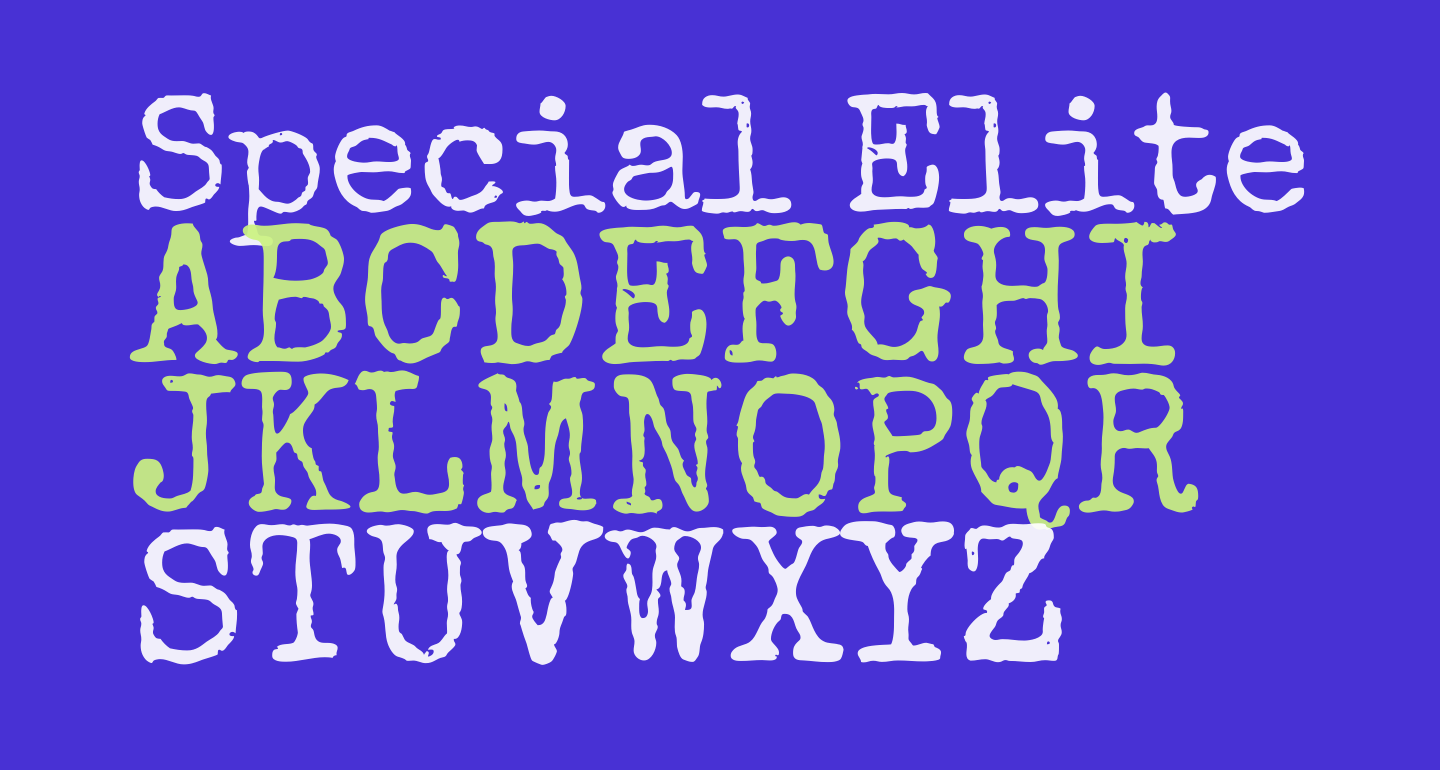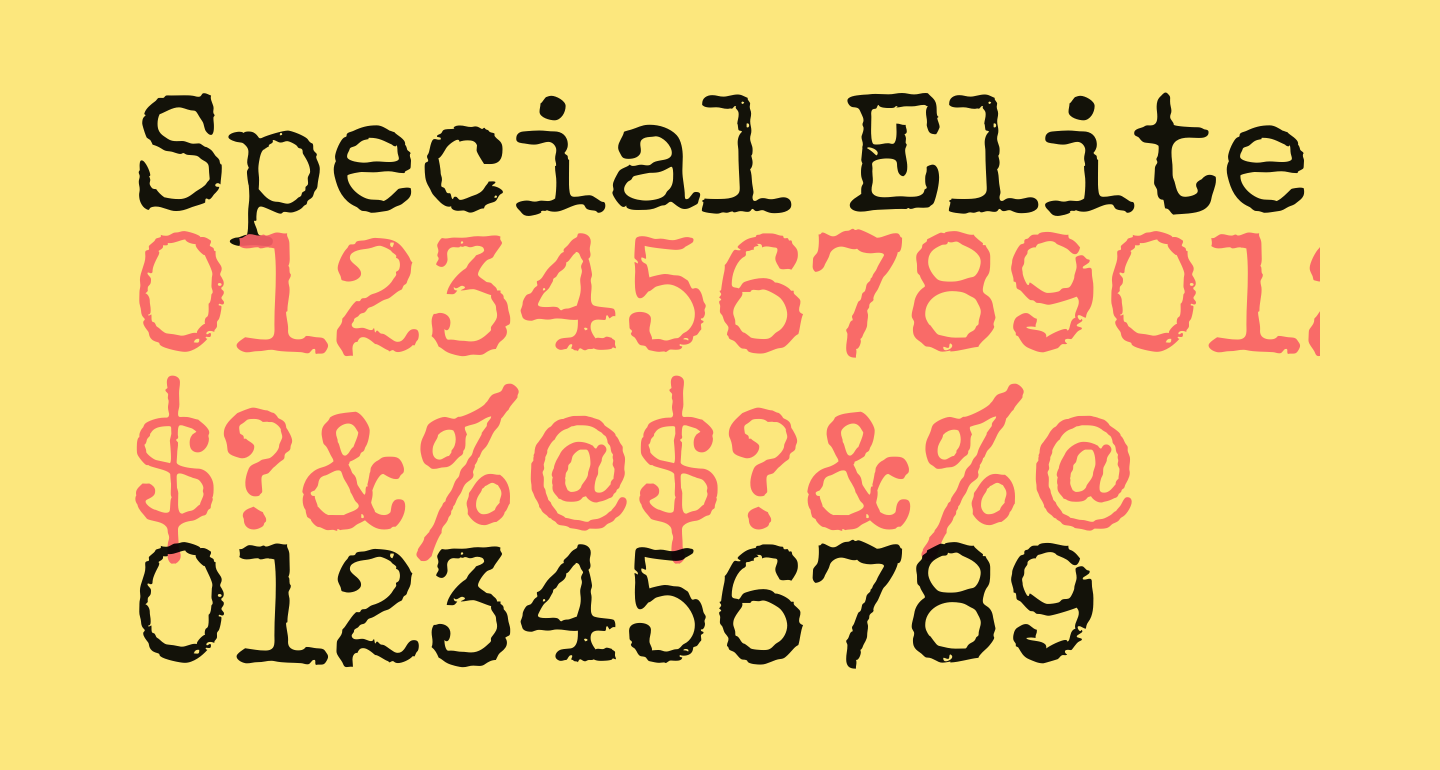
Special Elite Font Css . My code for special elite is the following and it works great: safe css font stacks and web fonts. A little bit of inked up grunge. Apply golden ratio to font sizes and line height based on paragraph font size. Special elite mimics the smith corona special elite type number nr6 and remington noiseless typewriter models. Lorem ipsum dolor sit amet,. Special elite was created to mimic the smith corona special elite type no nr6 and remington noiseless typewriter models.
Apply golden ratio to font sizes and line height based on paragraph font size. A little bit of inked up grunge. Special elite was created to mimic the smith corona special elite type no nr6 and remington noiseless typewriter models. My code for special elite is the following and it works great: safe css font stacks and web fonts. Special elite mimics the smith corona special elite type number nr6 and remington noiseless typewriter models. Lorem ipsum dolor sit amet,.
Special Elite Font Css Special elite mimics the smith corona special elite type number nr6 and remington noiseless typewriter models. My code for special elite is the following and it works great: Lorem ipsum dolor sit amet,. Special elite mimics the smith corona special elite type number nr6 and remington noiseless typewriter models. Apply golden ratio to font sizes and line height based on paragraph font size. A little bit of inked up grunge. safe css font stacks and web fonts. Special elite was created to mimic the smith corona special elite type no nr6 and remington noiseless typewriter models.
Special Elite Font Download Special Elite Font Css safe css font stacks and web fonts. Lorem ipsum dolor sit amet,. Apply golden ratio to font sizes and line height based on paragraph font size. Special elite was created to mimic the smith corona special elite type no nr6 and remington noiseless typewriter models. My code for special elite is the following and it works great: A little. Special Elite Font Css.
Special Elite font Font Tr Special Elite Font Css Apply golden ratio to font sizes and line height based on paragraph font size. Lorem ipsum dolor sit amet,. My code for special elite is the following and it works great: Special elite was created to mimic the smith corona special elite type no nr6 and remington noiseless typewriter models. safe css font stacks and web fonts. Special elite. Special Elite Font Css.
Special Elite Font Free Downlaod Special Elite Font Css Special elite mimics the smith corona special elite type number nr6 and remington noiseless typewriter models. Apply golden ratio to font sizes and line height based on paragraph font size. A little bit of inked up grunge. Lorem ipsum dolor sit amet,. Special elite was created to mimic the smith corona special elite type no nr6 and remington noiseless typewriter. Special Elite Font Css.
Special Elite free Font What Font Is Special Elite Font Css Apply golden ratio to font sizes and line height based on paragraph font size. Lorem ipsum dolor sit amet,. A little bit of inked up grunge. safe css font stacks and web fonts. Special elite was created to mimic the smith corona special elite type no nr6 and remington noiseless typewriter models. My code for special elite is the. Special Elite Font Css.
Download free Special Elite Regular font SpecialElite.ttf Special Elite Font Css safe css font stacks and web fonts. Special elite mimics the smith corona special elite type number nr6 and remington noiseless typewriter models. My code for special elite is the following and it works great: A little bit of inked up grunge. Apply golden ratio to font sizes and line height based on paragraph font size. Lorem ipsum dolor. Special Elite Font Css.
Special Elite free font Special Elite Font Css Special elite was created to mimic the smith corona special elite type no nr6 and remington noiseless typewriter models. Lorem ipsum dolor sit amet,. My code for special elite is the following and it works great: Special elite mimics the smith corona special elite type number nr6 and remington noiseless typewriter models. Apply golden ratio to font sizes and line. Special Elite Font Css.
Download free Special Elite Regular font SpecialElite.ttf Special Elite Font Css Special elite mimics the smith corona special elite type number nr6 and remington noiseless typewriter models. My code for special elite is the following and it works great: Lorem ipsum dolor sit amet,. Apply golden ratio to font sizes and line height based on paragraph font size. Special elite was created to mimic the smith corona special elite type no. Special Elite Font Css.
Special Elite Font Free Downlaod Special Elite Font Css Special elite was created to mimic the smith corona special elite type no nr6 and remington noiseless typewriter models. Special elite mimics the smith corona special elite type number nr6 and remington noiseless typewriter models. A little bit of inked up grunge. Lorem ipsum dolor sit amet,. safe css font stacks and web fonts. Apply golden ratio to font. Special Elite Font Css.
Special Elite Font · 1001 Fonts Special Elite Font Css My code for special elite is the following and it works great: Apply golden ratio to font sizes and line height based on paragraph font size. safe css font stacks and web fonts. Lorem ipsum dolor sit amet,. A little bit of inked up grunge. Special elite was created to mimic the smith corona special elite type no nr6. Special Elite Font Css.